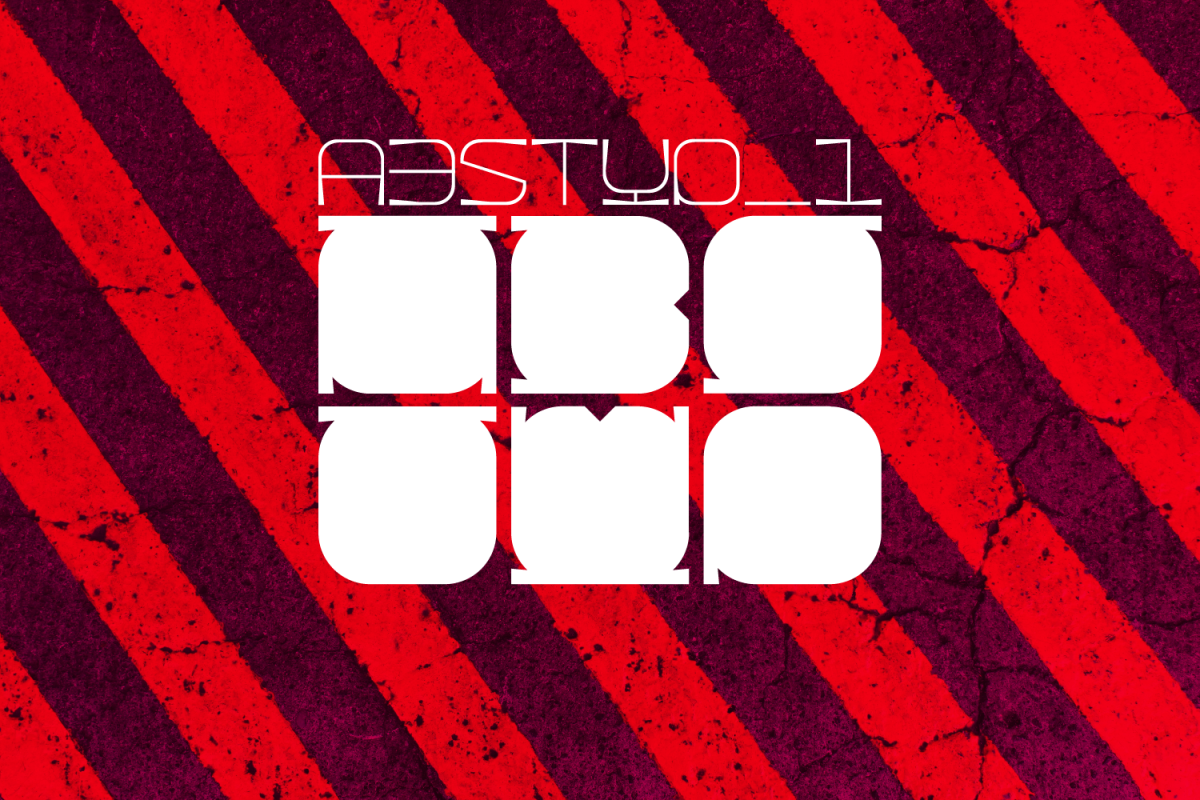
ABSTYP_1
ABSTYP_1 or Abstract Typeface One.
Working from a very restricted starting point this typeface looks at how much must remain to distinguish characters from each other to form an uppercase with a bloated aesthetic.
The font still has function though with a lower case built using thin strokes and following the outlines of the abstract uppercase.
With a technological edge this font would work well for events and branding within a range of industries.